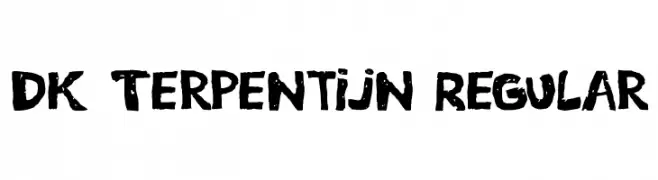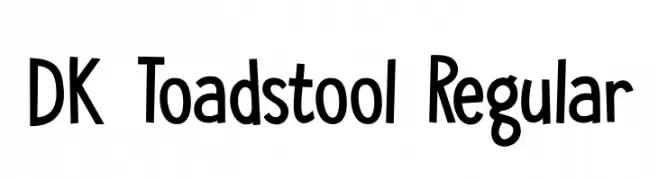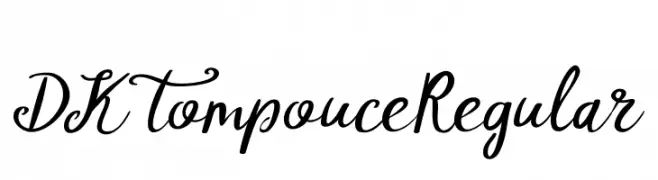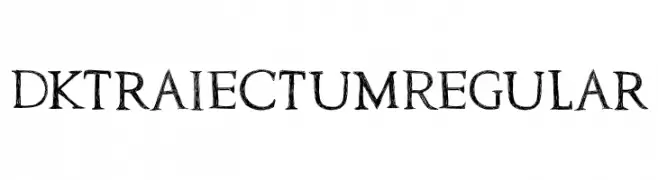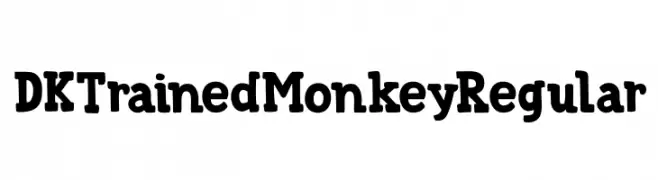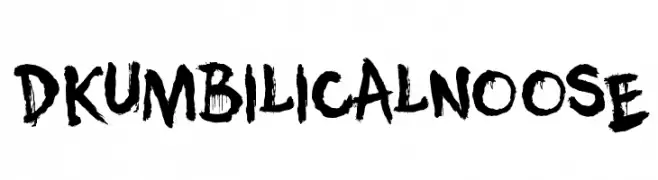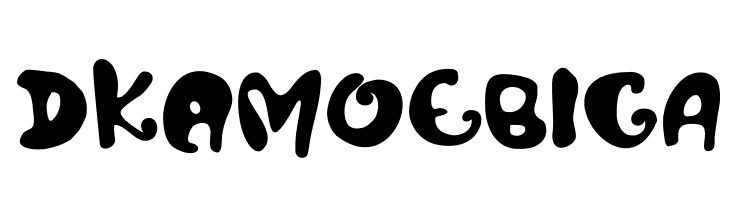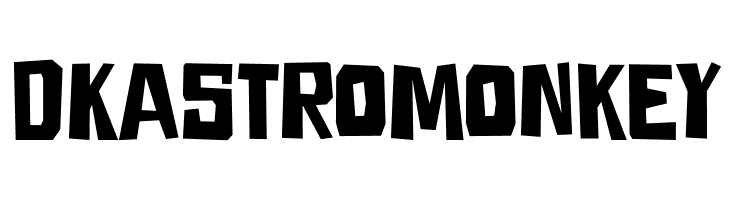
( Hanoded - David Kerkhoff - www.hanodedfonts.com )
A bold, 3D block-style font with a futuristic and dynamic appearance.
( Fonts by Hanoded )
A bold, distressed font with a rugged, hand-painted appearance.
( Fonts by Hanoded )
A playful, hand-drawn font with whimsical, uneven strokes and unique mushroom illustrations.
( Hanoded - David Kerkhoff - www.hanodedfonts.com )
An elegant, flowing script font with ornate uppercase and smooth lowercase letters.
( Fonts by Hanoded )
A playful, bold font with a whimsical, hand-drawn style and monkey motifs.
( Hanoded - David Kerkhoff - www.hanodedfonts.com )
A playful, handwritten font with smooth, rounded strokes and a casual style.
( Fonts by Hanoded )
A bold, brushstroke-style font with a raw, edgy aesthetic.
( Hanoded - David Kerkhoff - www.hanodedfonts.com )
A bold, expressive handwritten font with a brush-like style.